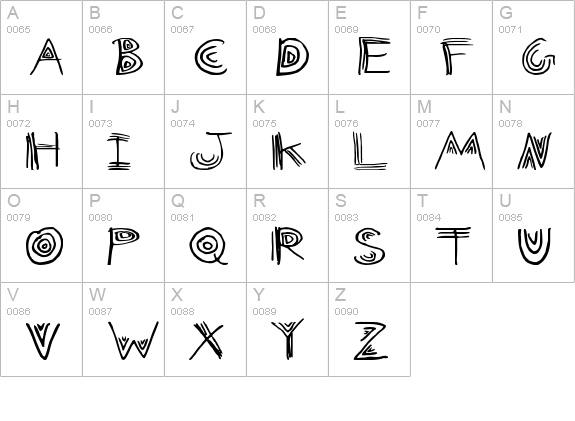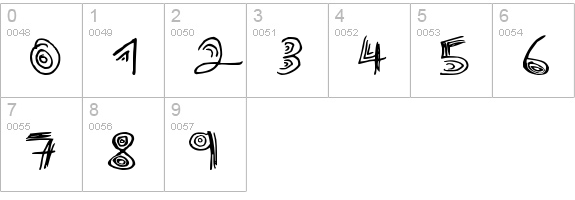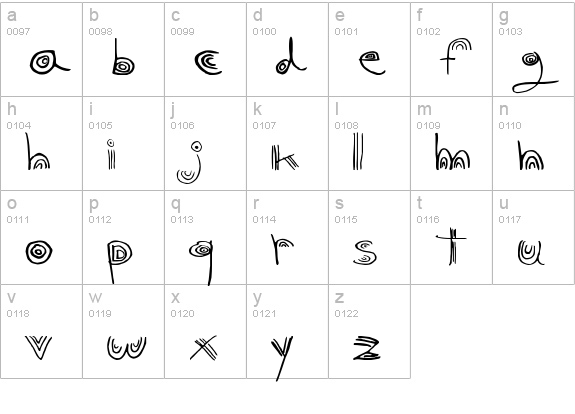
nuni Font Details
Introducing Nuni Font - a stunning display font that exudes elegance and sophistication. With its unique design and intricate details, Nuni Font is perfect for adding a touch of luxury to your projects. Whether you're creating wedding invitations, logo designs, or social media graphics, this font will surely make a statement. What's even better? Nuni Font is completely free to download at FontsMarket.com! Yes, you read that right - you can access this gorgeous font at no cost and elevate your designs with ease. Don't miss out on this amazing opportunity to enhance your creative projects with Nuni Font. Download it now and let your creativity shine!